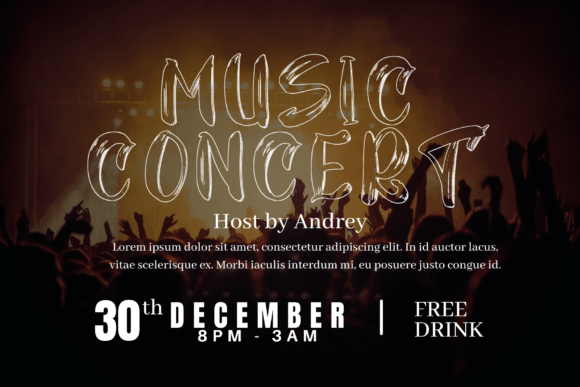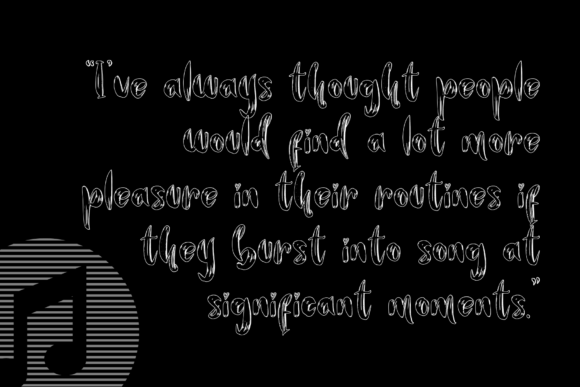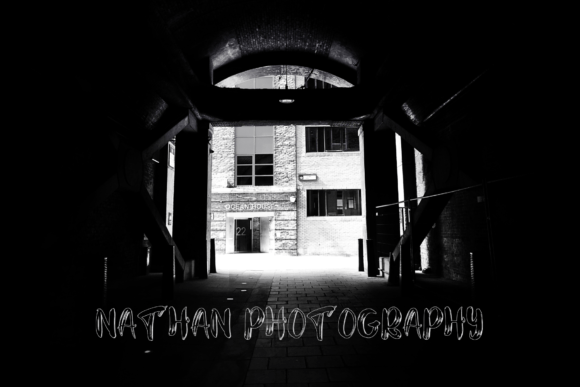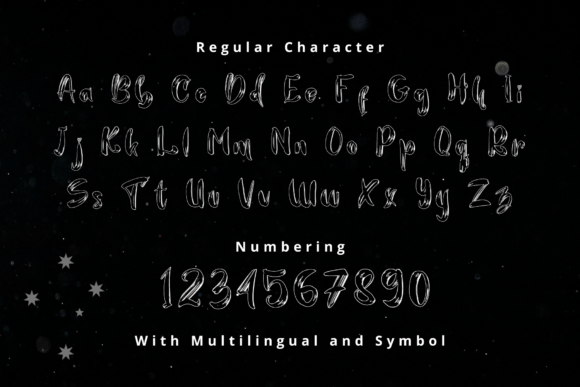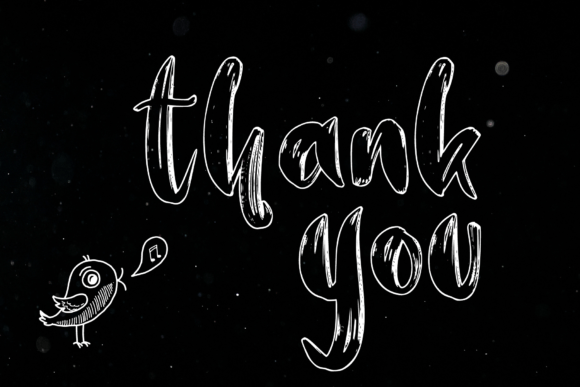
Introduction to Rock Ranger Font
Rock Ranger is a bold and strong monoline brush display font.
Natural and elegant, this font can be used on a wide variety of designs such as headlines, titles, headings, logos, branding, posters, invitations, books, and any other creative projects .